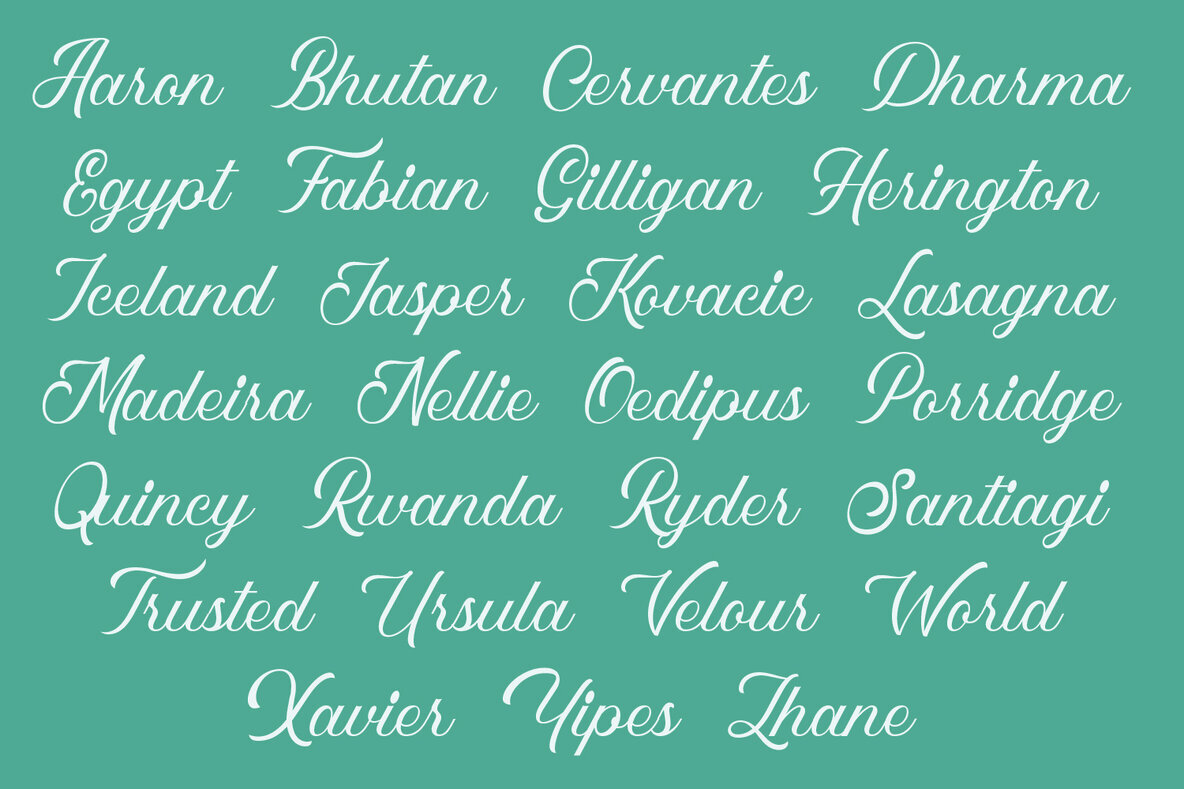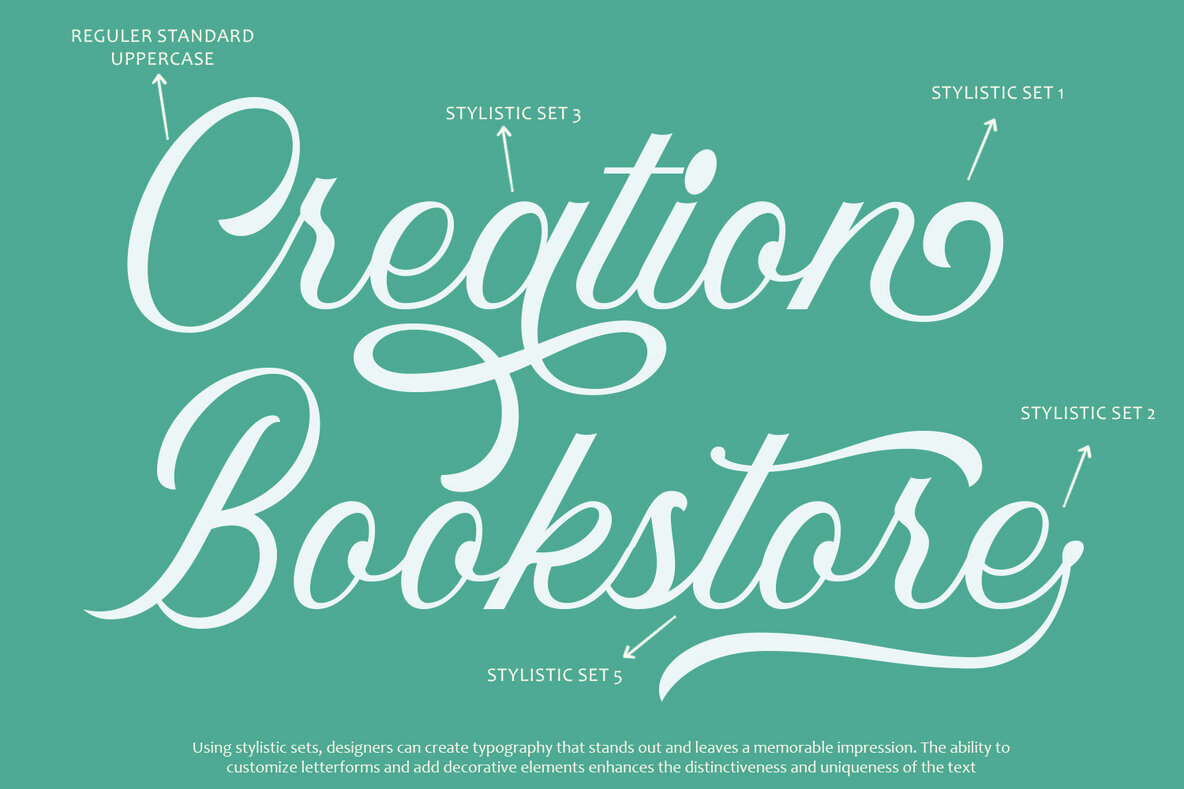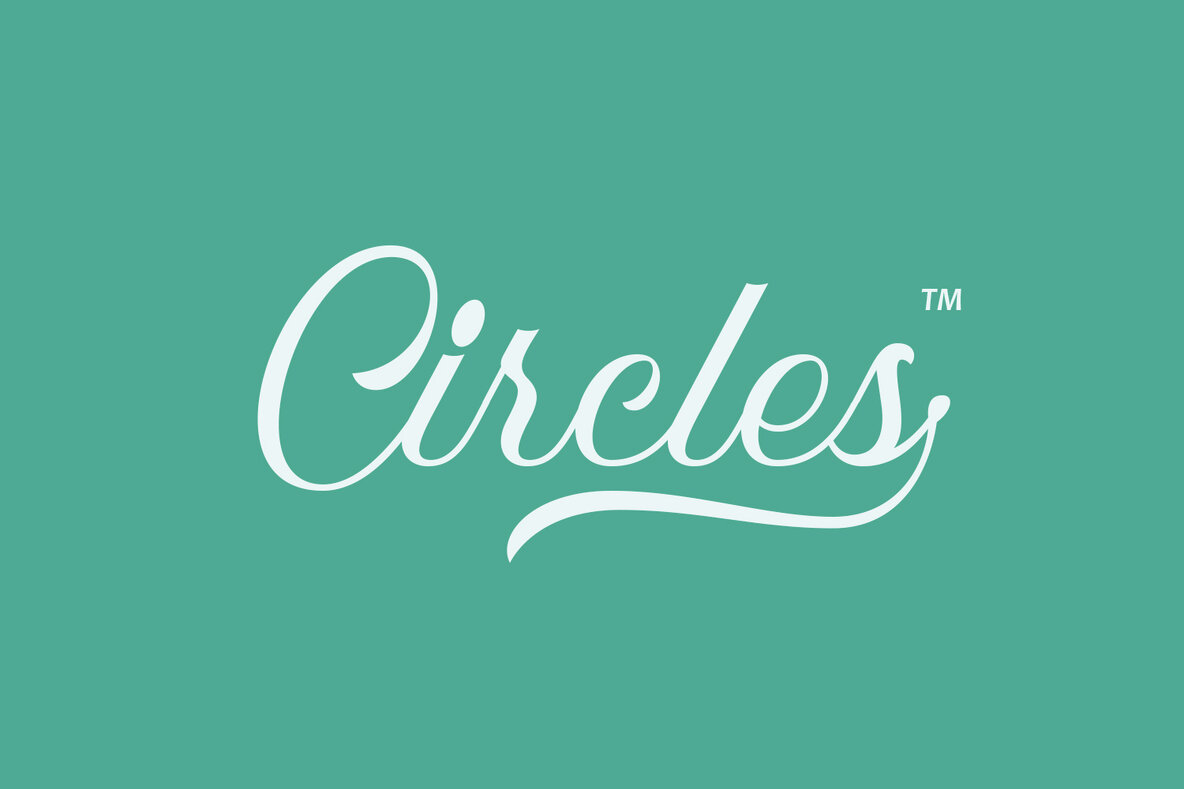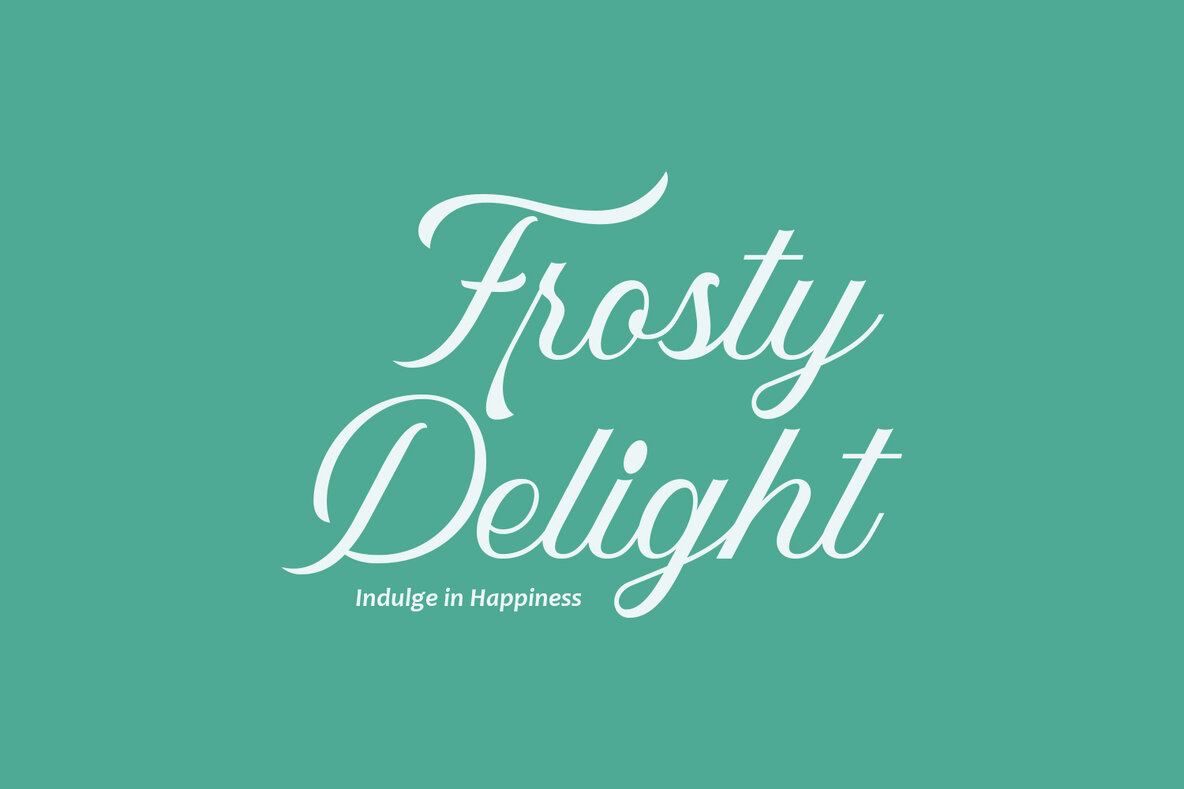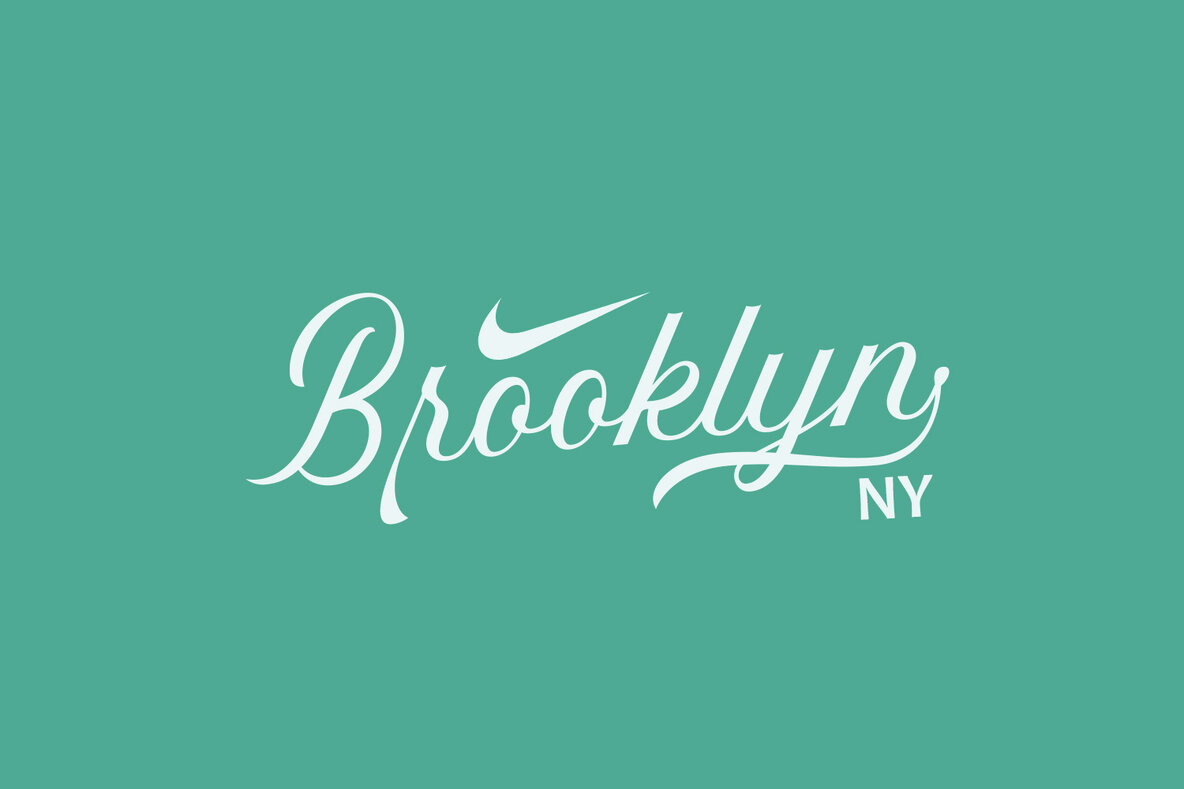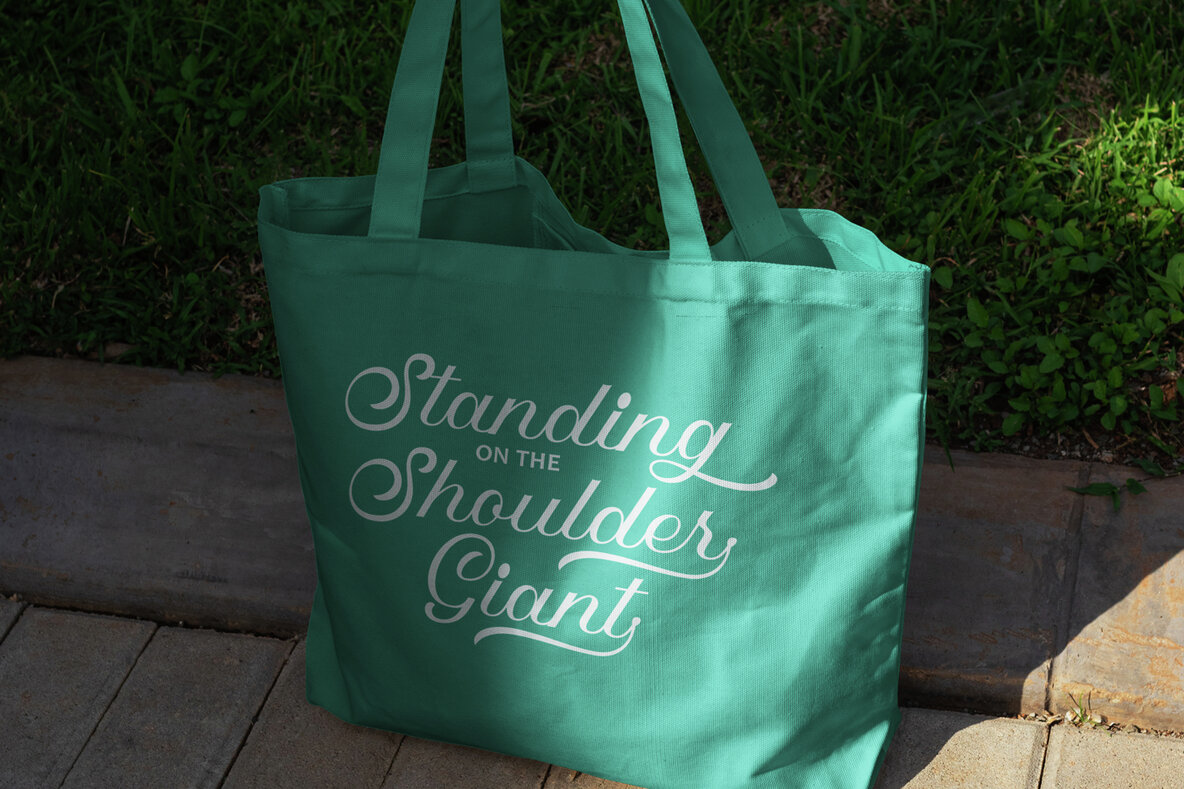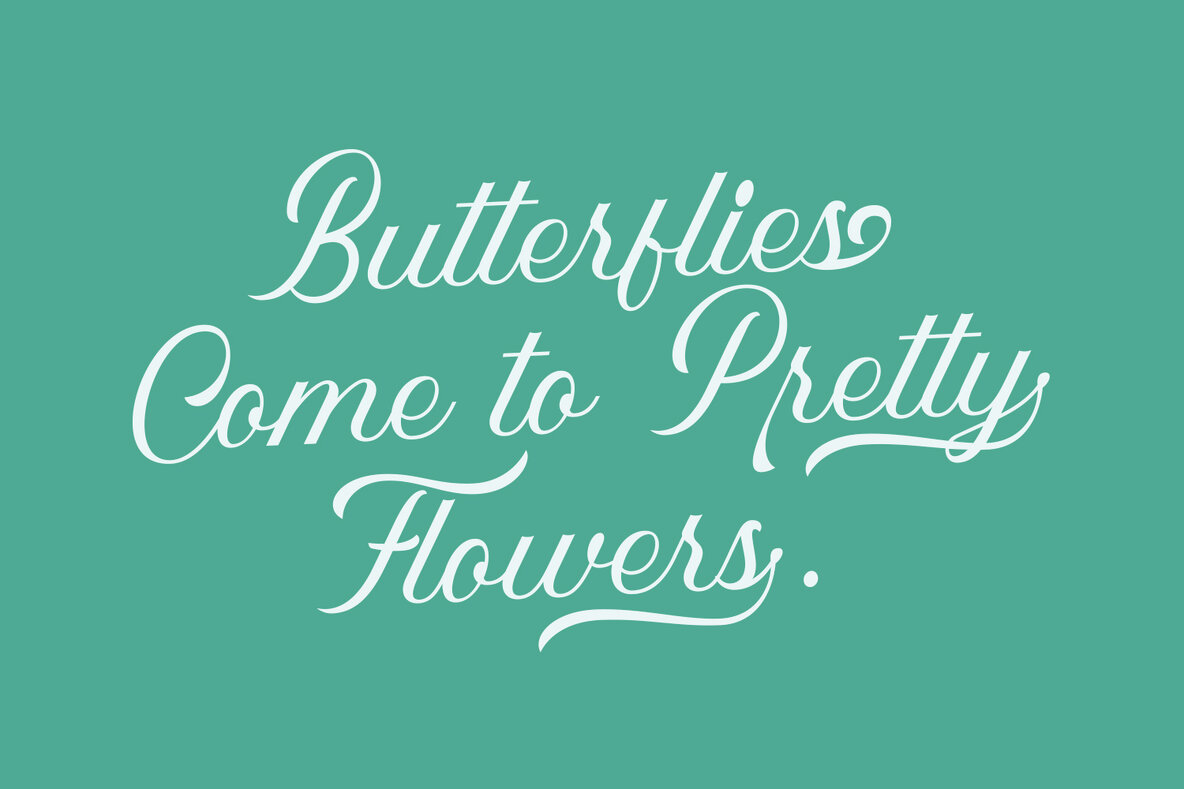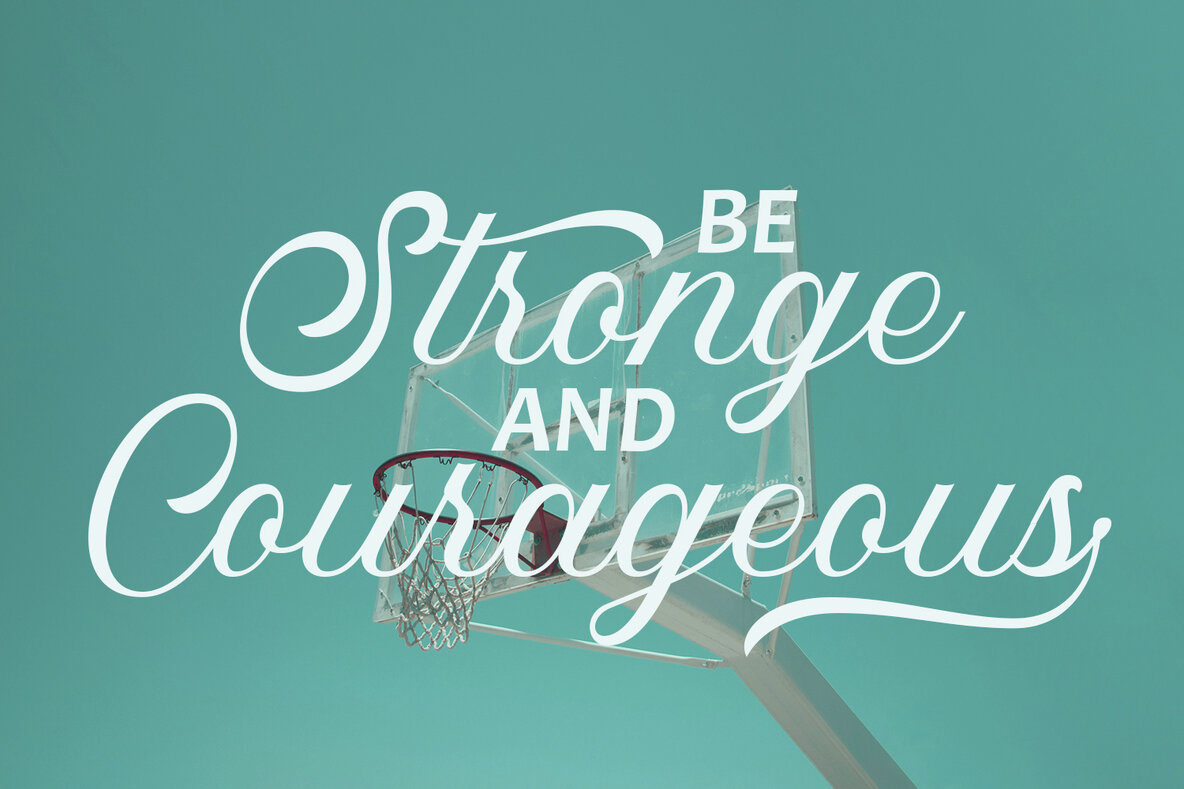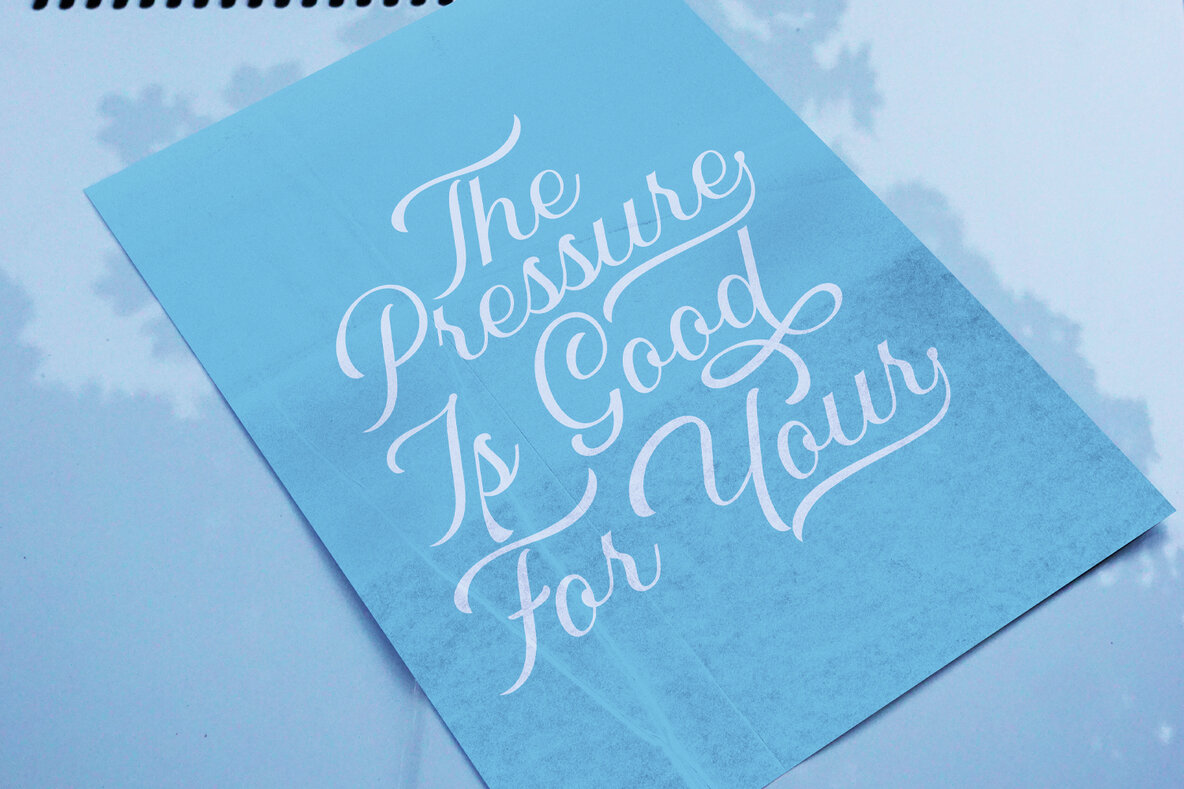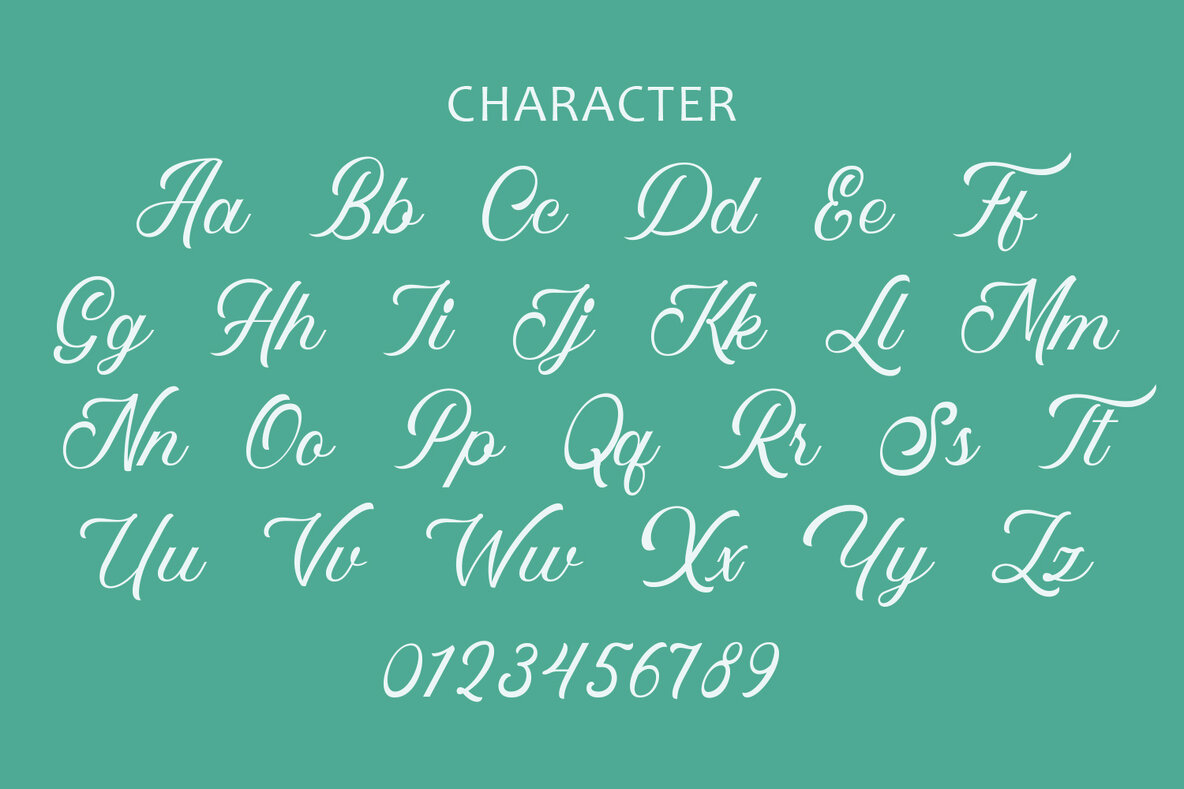
Frontman Font
Frontman Regular
Frontman is a modern script font that blends simplicity with elegance, making it perfect for various design projects, from branding to social media graphics. Characterized by its smooth, flowing lines, Frontman ensures a sleek and polished look. Its minimalistic style promotes a clean and uncluttered appearance, enhancing legibility.
This versatile font is ideal for creating sophisticated brand identities and logos, enhancing social media graphics, and adding an elegant touch to website headers. Frontman includes a complete alphabet with uppercase and lowercase letters, numerals, and punctuation marks, along with ligatures and alternate characters for added customization. Designed for high legibility, it combines contemporary aesthetics with classic script elements, offering a stylish and modern look suitable for various design styles, including logo design, social media graphics, and product packaging. The font supports multilingual characters and comes with PUA encoding for ease of use without specialized software.